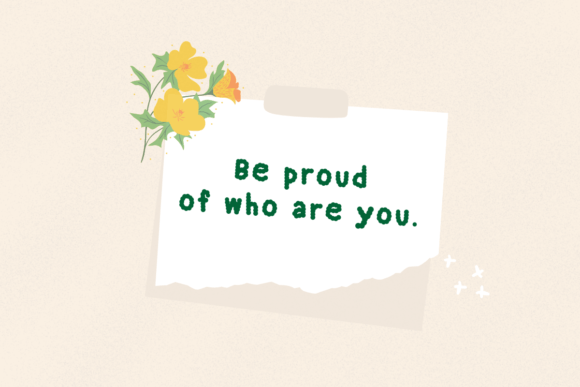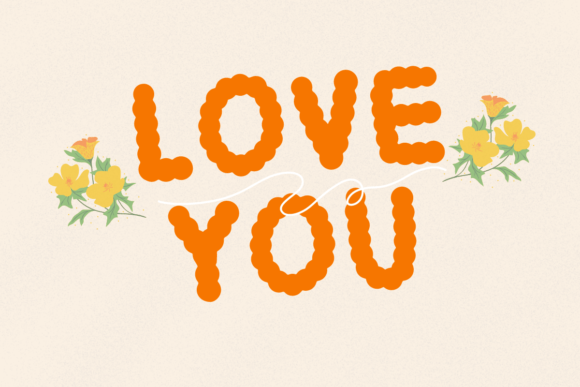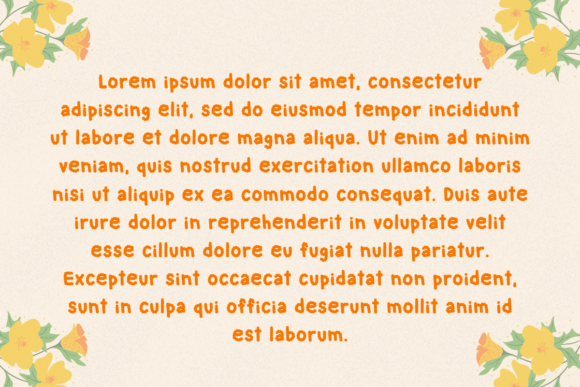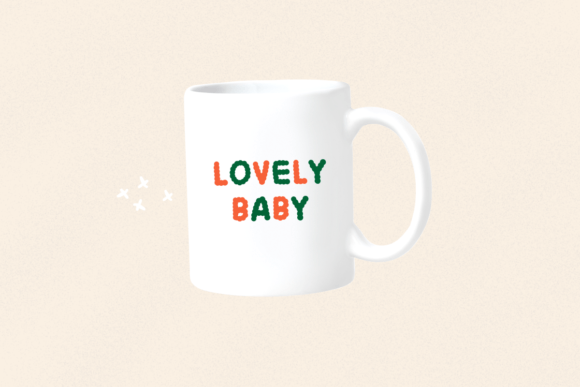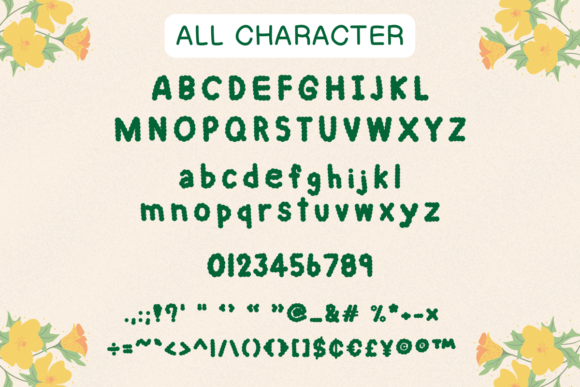
Introducing Dot Font: The Ultimate Display Font for Fun and Playful Designs
Are you tired of using the same old fonts for your designs? Look no further! Dot Font is here to add a touch of youth and joy to your creations. This cool, incredibly cute, and bubbly display font is perfect for party invitations, swimming gatherings, or any design that requires a playful twist.
What is Dot Font?
Dot Font is a unique and eye-catching display font that features rounded and bubbly letters. Its fun and playful design makes it ideal for use in a variety of creative projects, from party invitations and social media graphics to posters and flyers.
The font’s distinctive dot-like features give it a charming and whimsical feel that’s sure to capture the attention of your audience. Whether you’re a designer, crafter, or DIY enthusiast, Dot Font is a great addition to your font collection.
Key Features of Dot Font
- Cute and Playful Design: Dot Font features rounded and bubbly letters that add a touch of fun and playfulness to your designs.
- Unique Dot-Like Features: The font’s distinctive dot-like features give it a charming and whimsical feel.
- Versatile: Dot Font can be used in a variety of creative projects, from party invitations and social media graphics to posters and flyers.
- Easy to Read: Despite its playful design, Dot Font is easy to read and understand, making it perfect for use in titles, headings, and other display text.
Use Cases for Dot Font
Dot Font is perfect for a wide range of design projects, including:
- Party Invitations: Add a touch of fun and playfulness to your party invitations with Dot Font.
- Swimming Gatherings: Create eye-catching posters and flyers for your swimming gatherings with Dot Font.
- Social Media Graphics: Use Dot Font to add a playful twist to your social media graphics and attract more attention.
- Posters and Flyers: Dot Font is perfect for use in posters and flyers for events, promotions, and more.
Why Designers and Crafters Love Dot Font
Designers and crafters love Dot Font for its unique and playful design. Here are a few reasons why:
- Adds a Touch of Personality: Dot Font adds a touch of personality and whimsy to your designs, making them stand out from the crowd.
- Versatile: Dot Font can be used in a wide range of design projects, from digital graphics to print materials.
Tips for Using Dot Font
Here are a few tips for using Dot Font in your designs:
- Use it as a Display Font: Dot Font is perfect for use as a display font in titles, headings, and other display text.
- Pair it with Other Fonts: Pair Dot Font with other fonts to create a unique and eye-catching design.
- Experiment with Colors: Dot Font looks great in a variety of colors, so don’t be afraid to experiment and find the perfect color for your design.
| Font Name | Dot Font |
| Author | Khim08Studio |
Dot Font is a fun and playful display font that’s perfect for adding a touch of youth and joy to your designs. With its unique and eye-catching design, Dot Font is sure to capture the attention of your audience and make your designs stand out from the crowd.
Whether you’re a designer, crafter, or DIY enthusiast, Dot Font is a great addition to your font collection. So why not give it a try and see how it can add a touch of fun and playfulness to your designs?